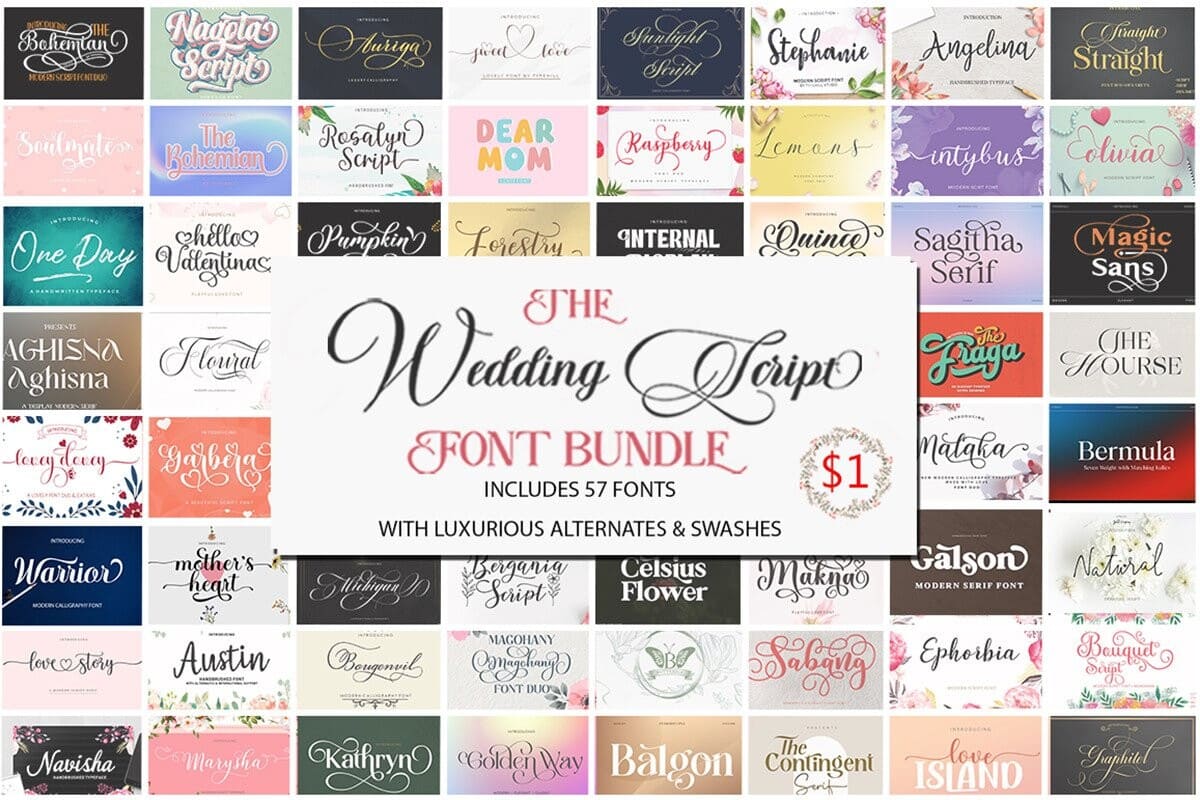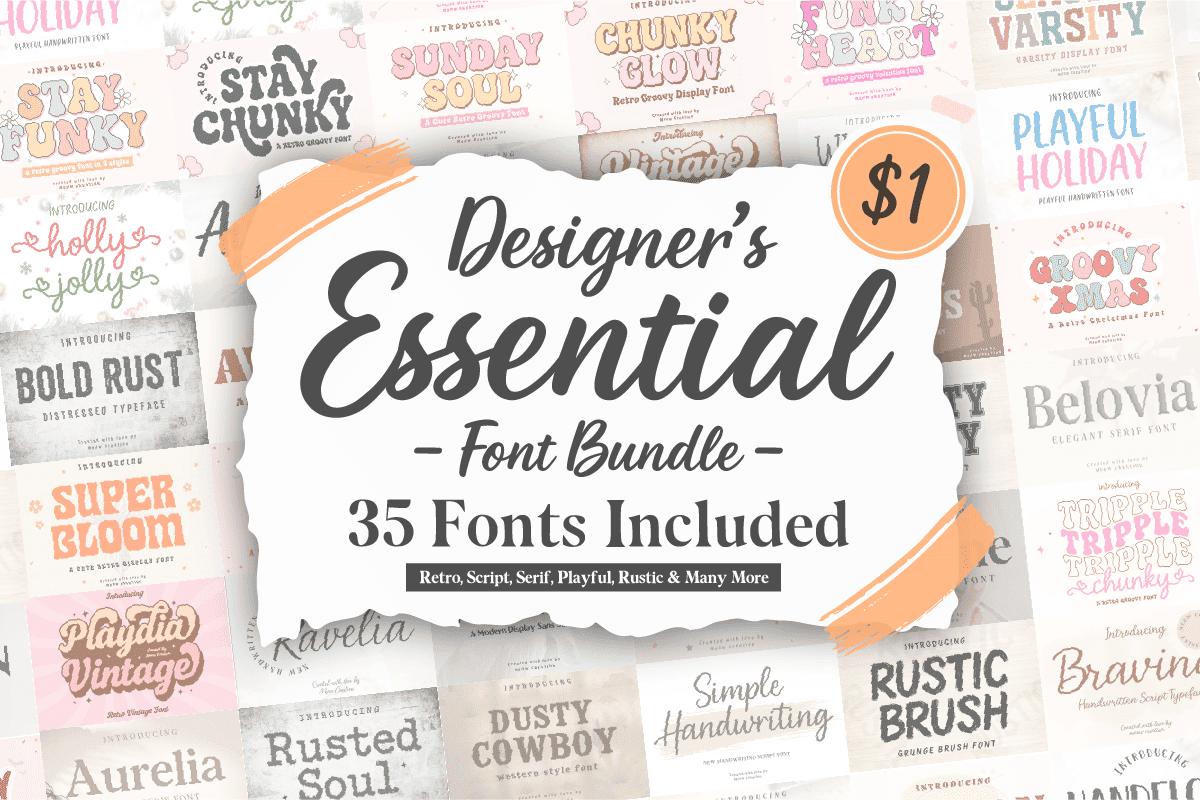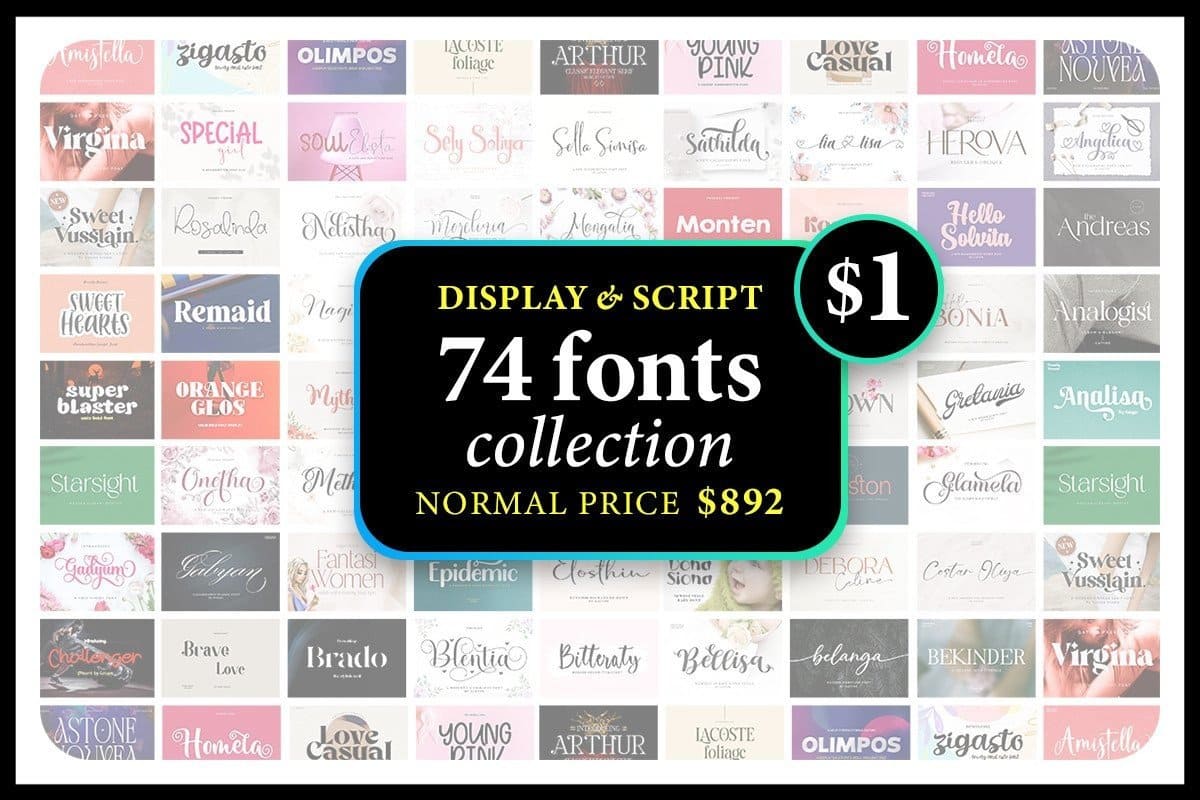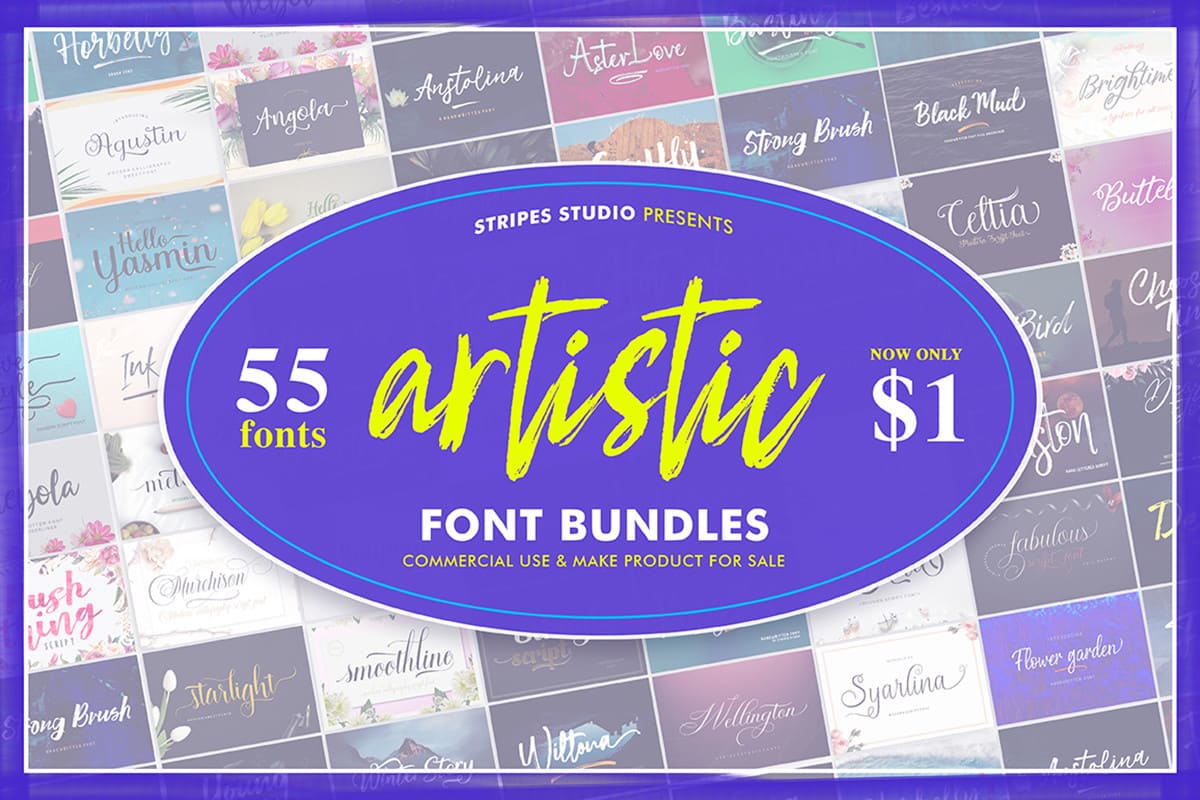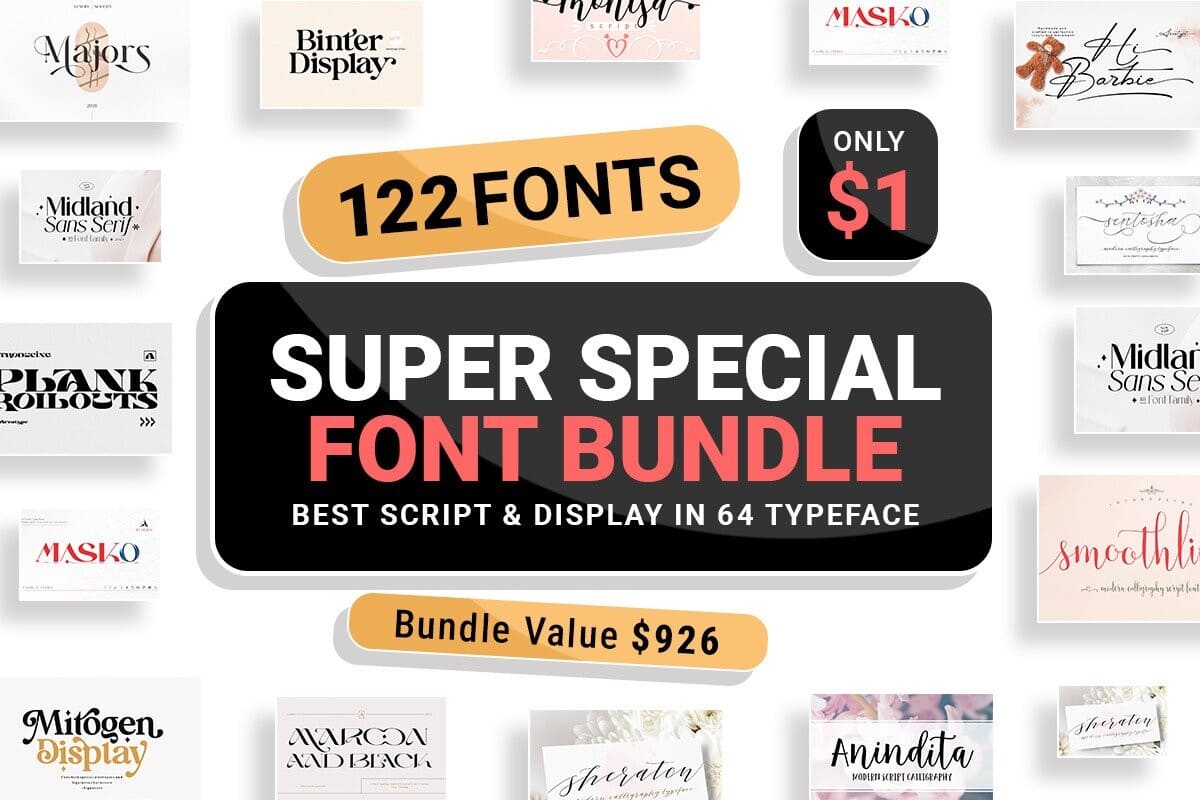
Fonts shape perception faster than color or layout. Before someone reads a single word, they feel your typography. Premium. Playful. Handmade. Corporate. Trustworthy.
That is why serious designers do not treat typography as decoration. They treat it as a strategy.
In this guide, I’m breaking down the best Creative Fabrica font bundles for designers who want range, flexibility, and commercial freedom without overspending. Instead of buying one font at a time, bundles give you a curated toolkit that supports branding, print, digital products, and client work.
If you want typography that elevates your projects rather than limits them, you’re in the right place.
Why Creative Fabrica Font Bundles Are Worth It
A font bundle is not just a discounted pack of typefaces. It’s optionality.
When you buy a single font, you’re solving today’s problem. When you buy a bundle, you’re preparing for the next 10 projects.
The best font bundles for designers include intentional variety. They include complementary styles such as serif, sans serif, script, display, and often bonus graphics. This diversity allows you to create cohesive brand systems instead of isolated designs.
Here is where Creative Fabrica bundle deals stand out. The price-to-quality ratio is difficult to ignore. You often get dozens of polished fonts for less than the cost of two individual fonts elsewhere. If you sell digital planners, wall art, branding kits, or client designs, that pricing difference directly impacts your margins.
The best Creative Fabrica font bundles are:
The Wedding Script Font Bundle
Designer’s Essential Font Bundle
Minimalist Font Bundle
Retro Bundle Collection Font
Handwritten Font Bundle
Display & Script Font Collection
Artistic Font Bundles
Best for: Visual storytelling, DIY crafts, professional brand design
Why it stands out: Diverse styles, PUA encoded, easy access to decorative swashes and glyphs.
Mega Notebook Handwriting Bundle Font
Modern Serif Bundle Font
Super Special Font Bundle – Top Pick
Font Pairing Tips Using Creative Fabrica Bundles
Let me be direct. Font pairing is where most designs either elevate or collapse.
Start with contrast, not similarity. A bold serif headline paired with a clean sans serif body font creates hierarchy instantly. If you pair two decorative scripts together, you create tension without hierarchy.
Second, assign roles. One font leads. One supports. When designers search for the best font bundles for designers, they are really looking for controlled versatility. A strong bundle gives you both expressive and neutral options so you can structure layouts with intention.
Third, limit yourself. 2 fonts are usually enough. 3 only if one is highly restrained. Many font bundles include elegant swashes and alternates. Use them where attention matters most, such as a logo mark or key headline. Leave breathing room everywhere else.
Finally, test in real scenarios. Design a mock Instagram post, a product label, and a website header. If the pairing holds up across all formats, you have a system, not just a pretty combination.
This is another reason Creative Fabrica font bundles are practical. Because multiple complementary styles are included, you can experiment, refine, and iterate without purchasing new fonts every time your concept evolves.